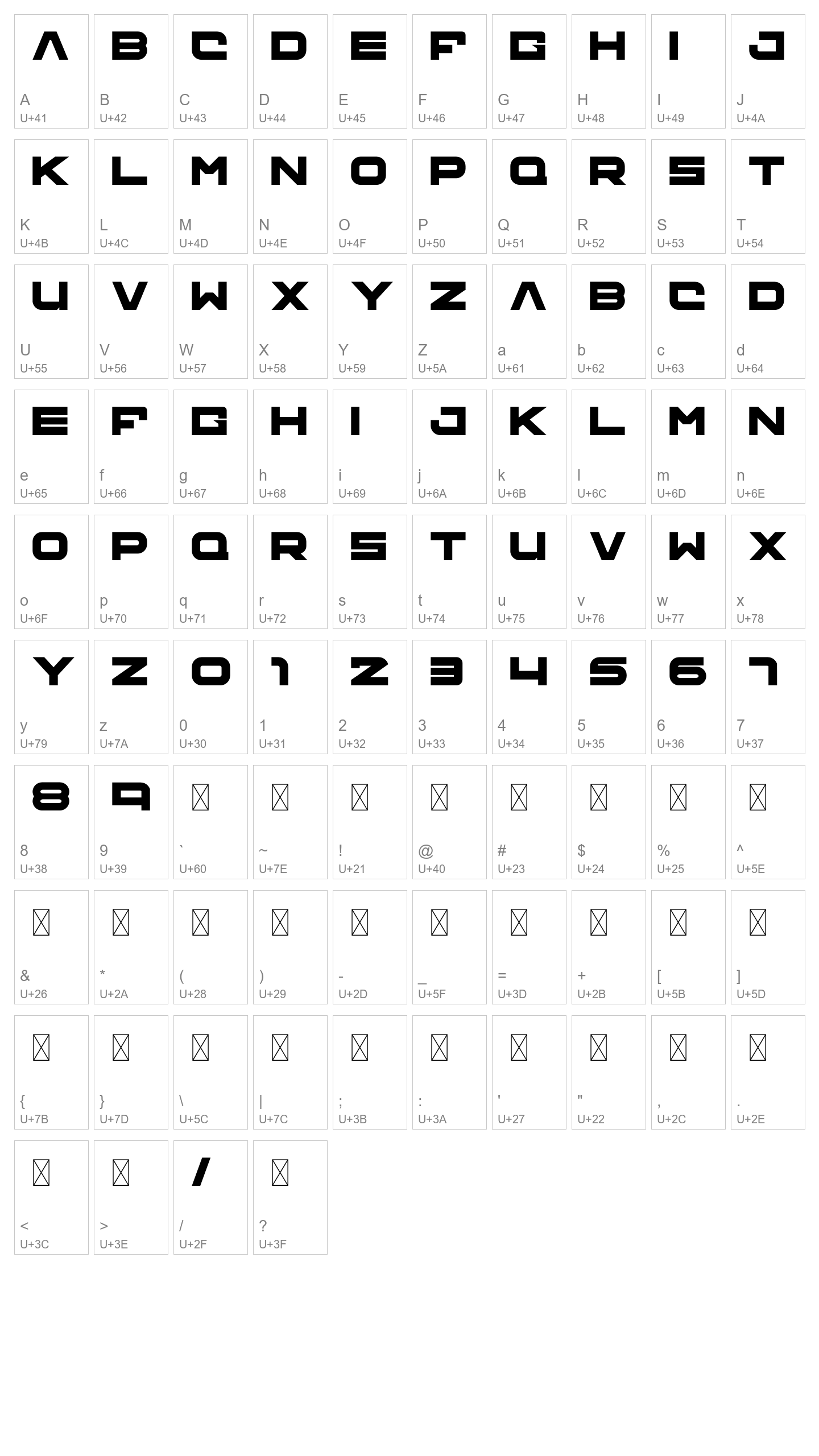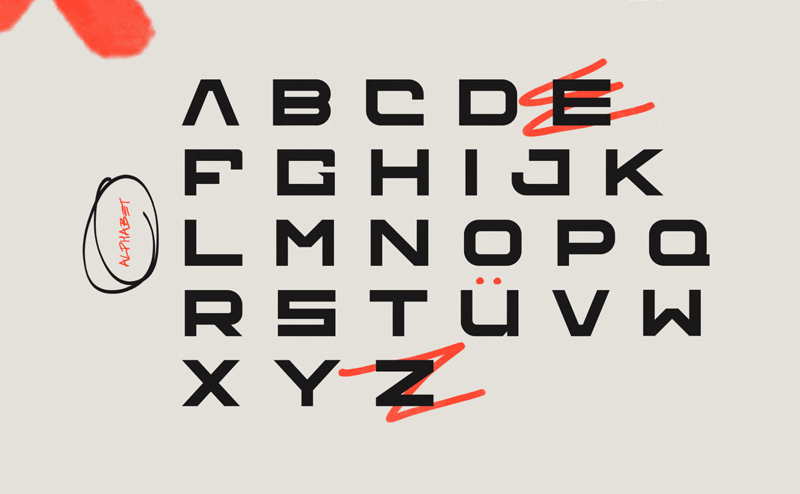
Airnt
Airnt is a 4 style showcase font that holds a futuristic/urban vibe. I've created fonts such as Quantum and aquire. Which is why you'll see a "Quantum" style in order to show love to the fonts that gave me so much momentum